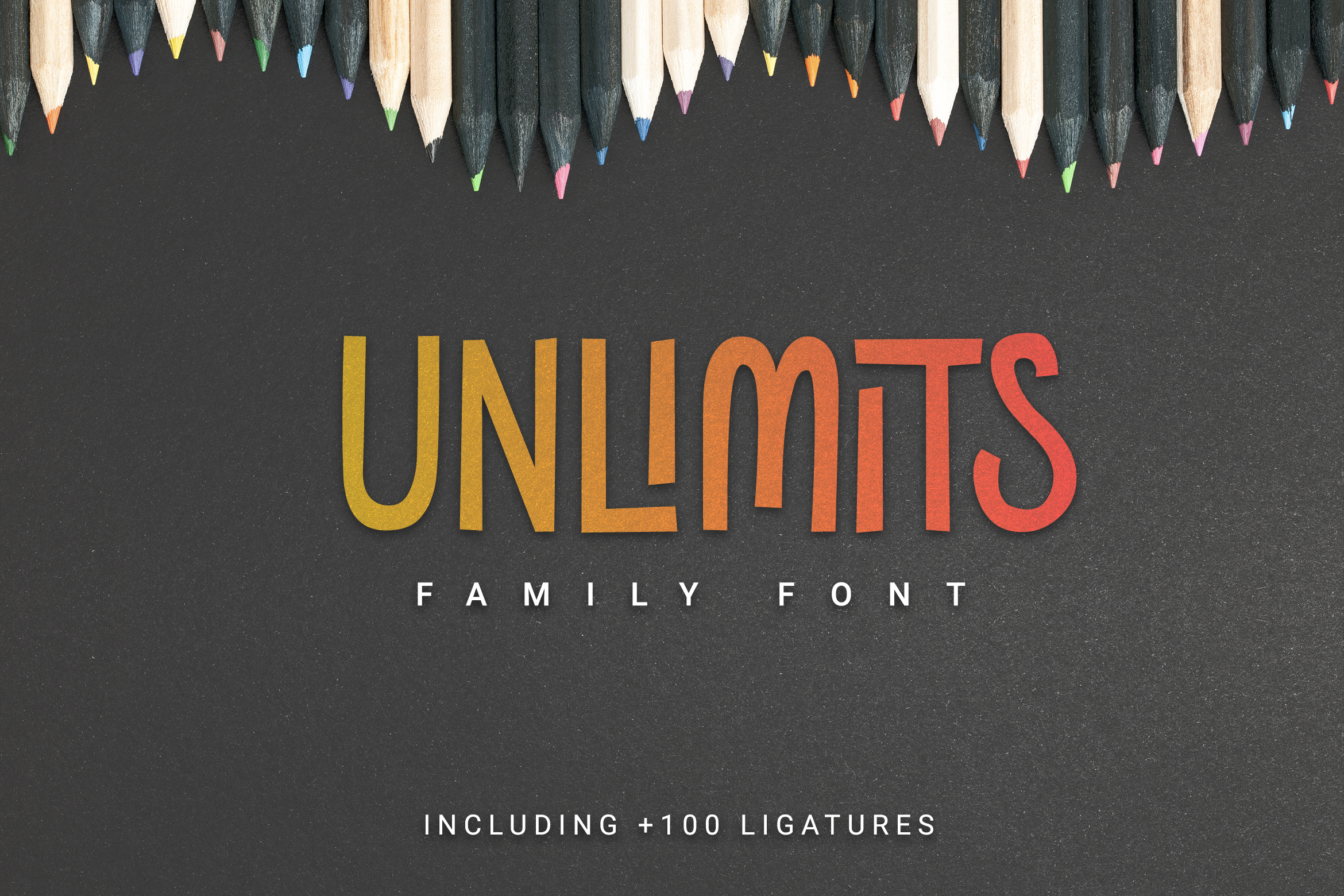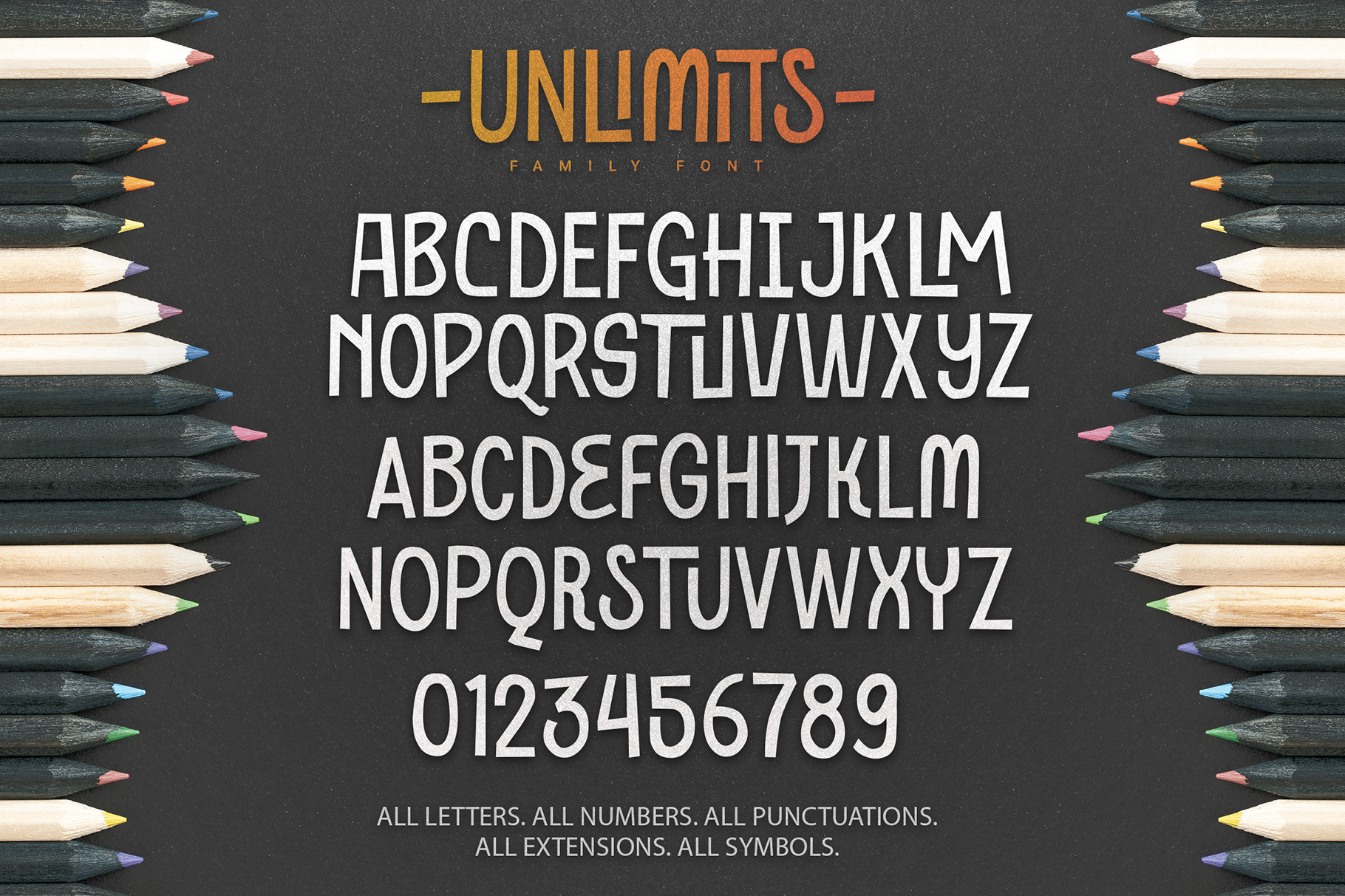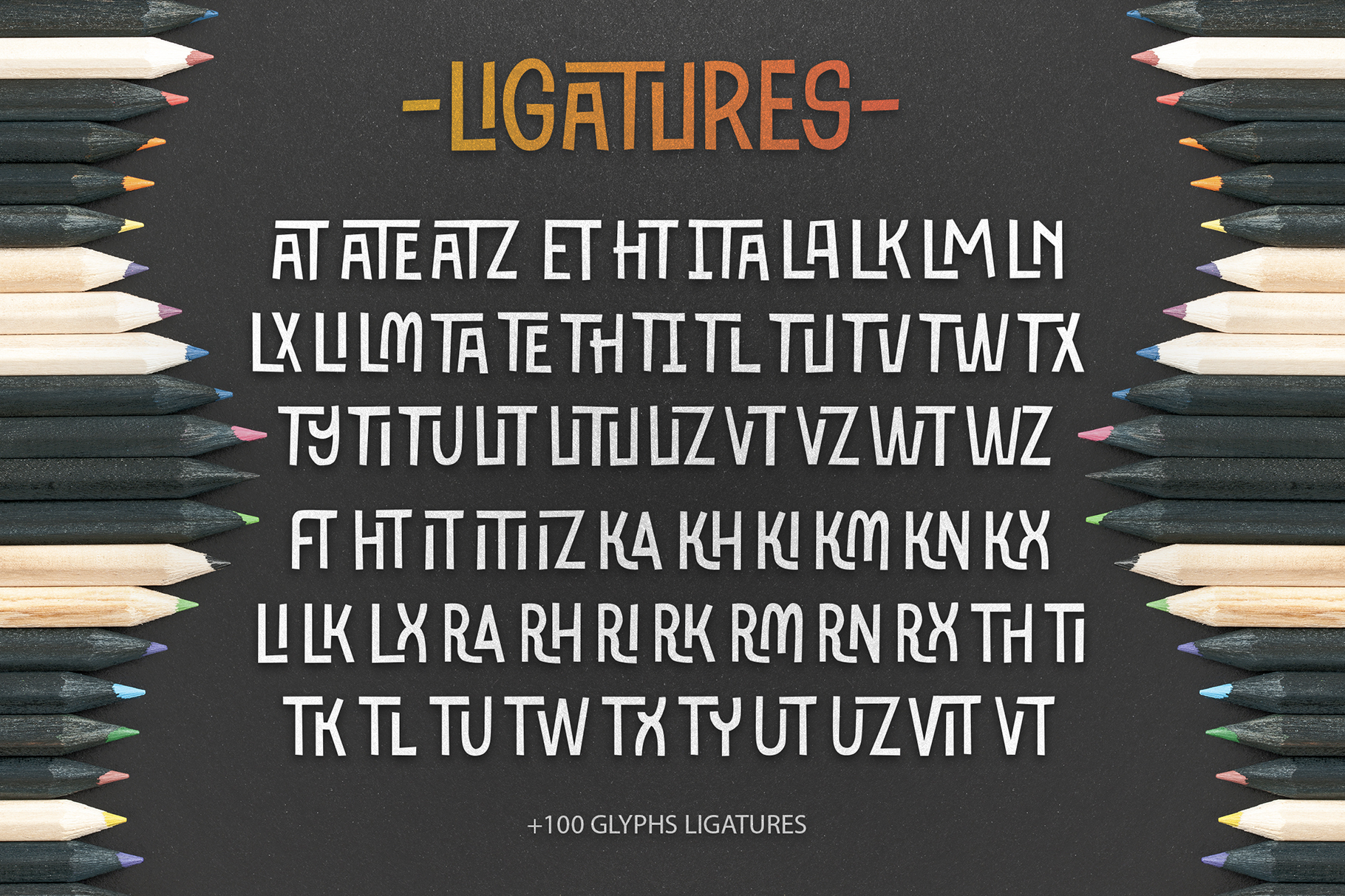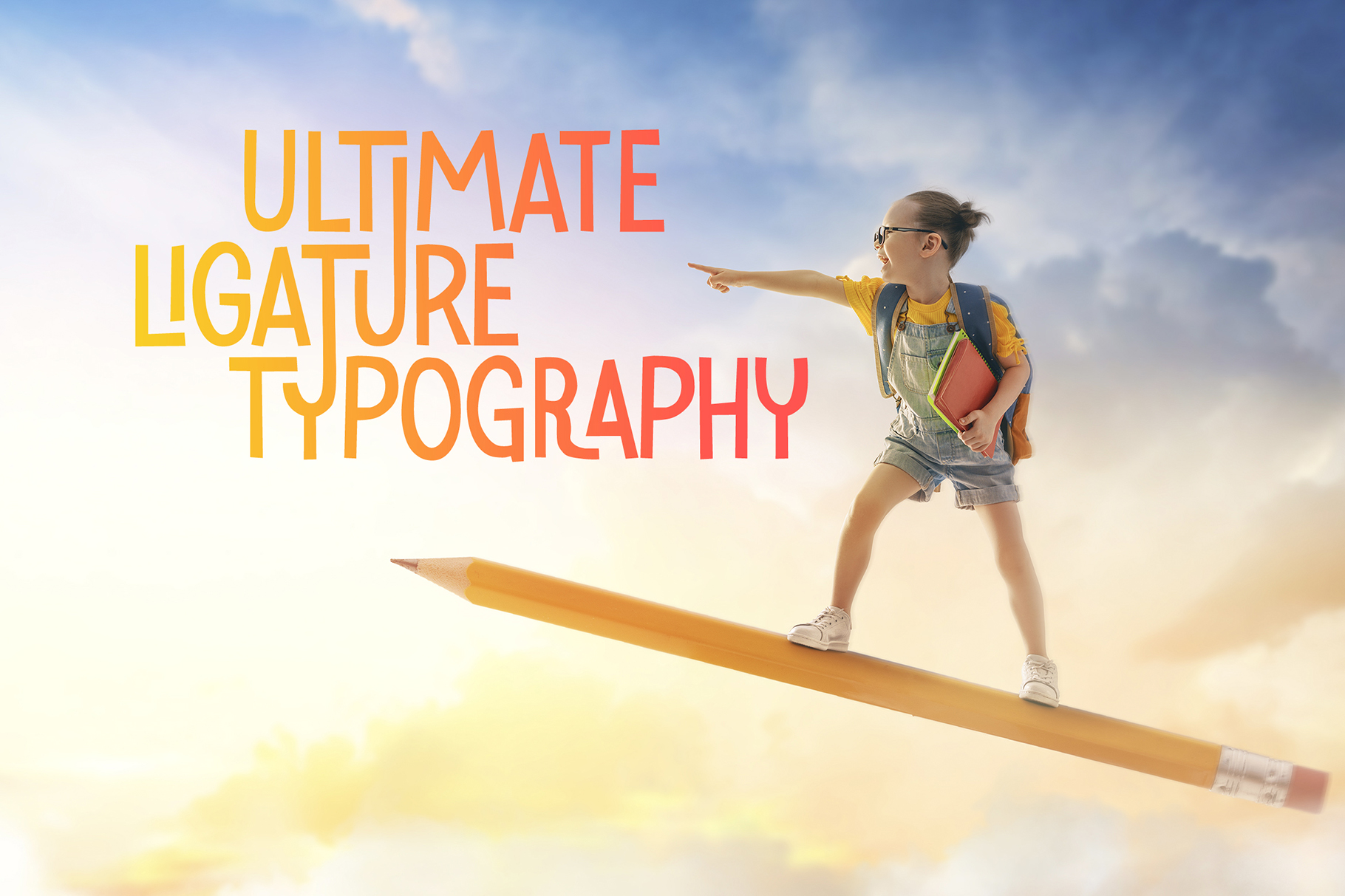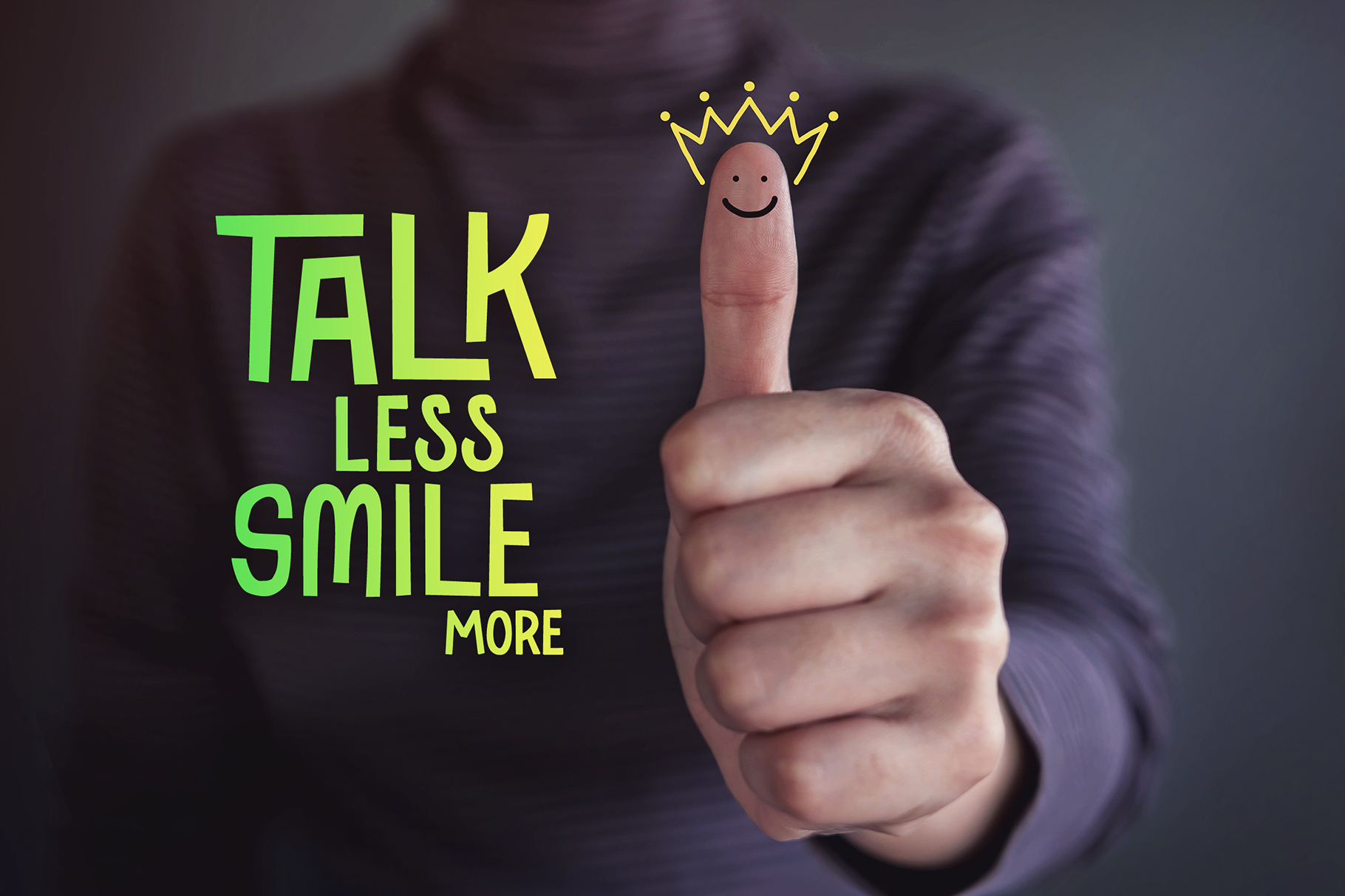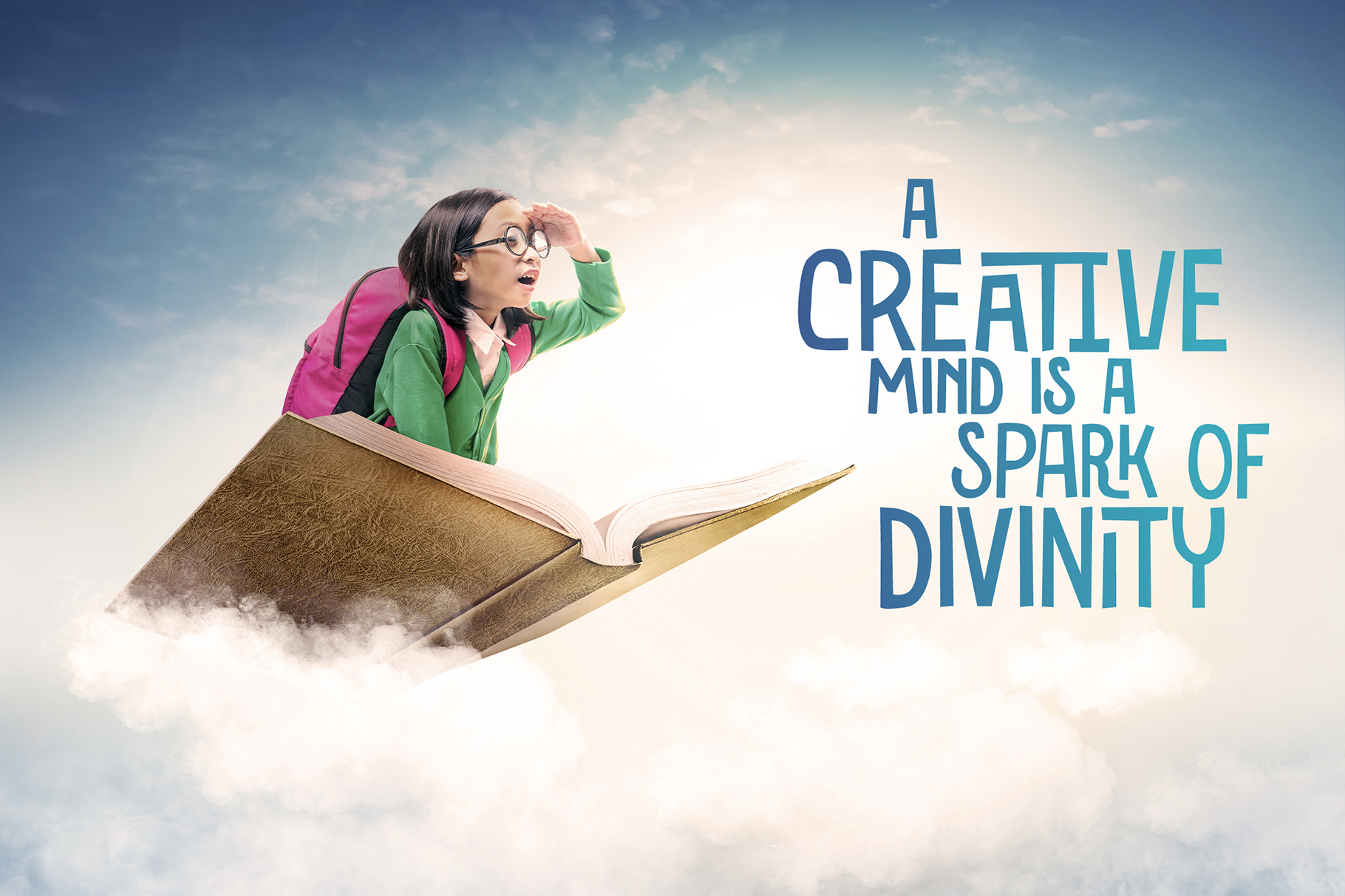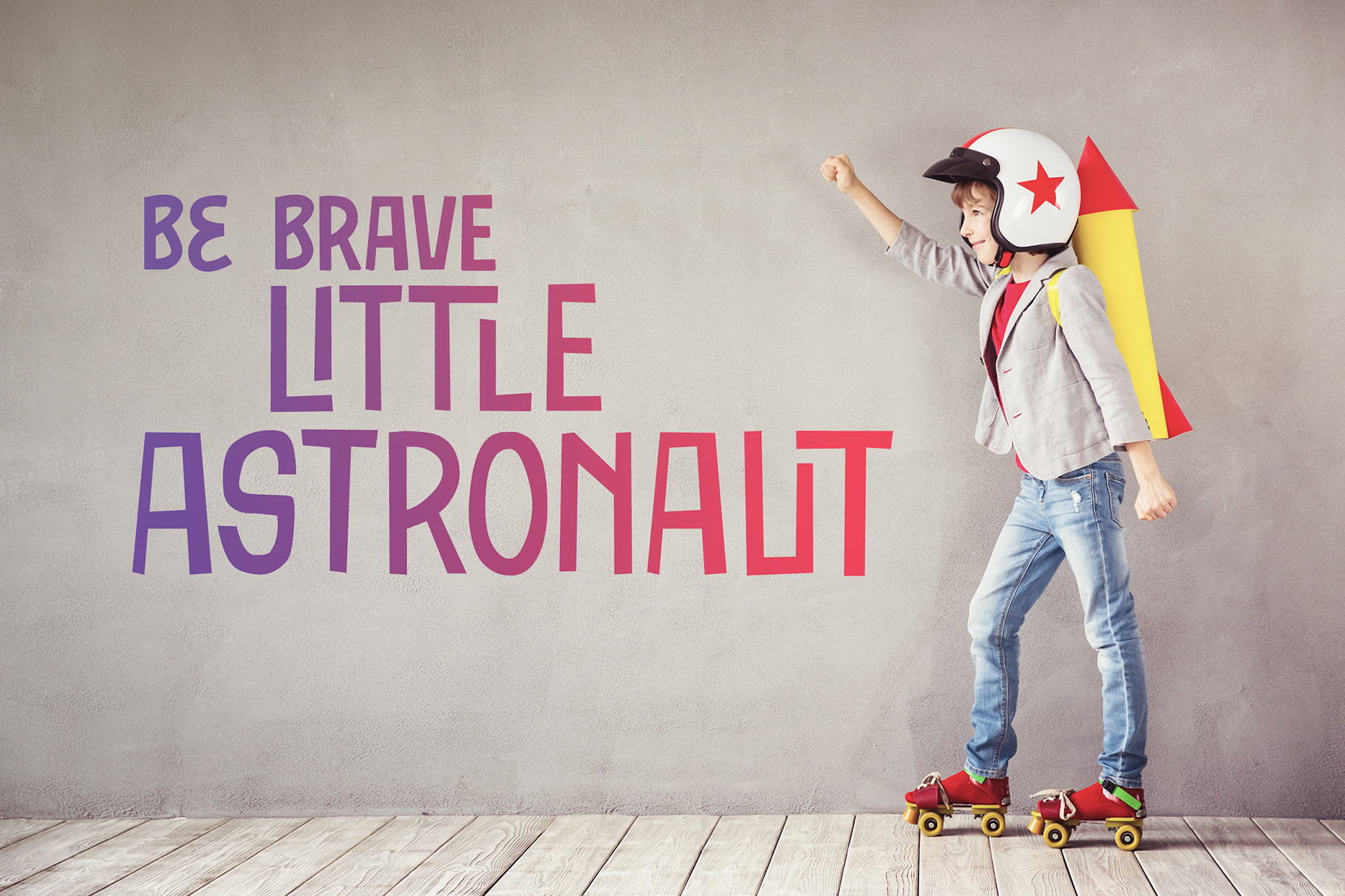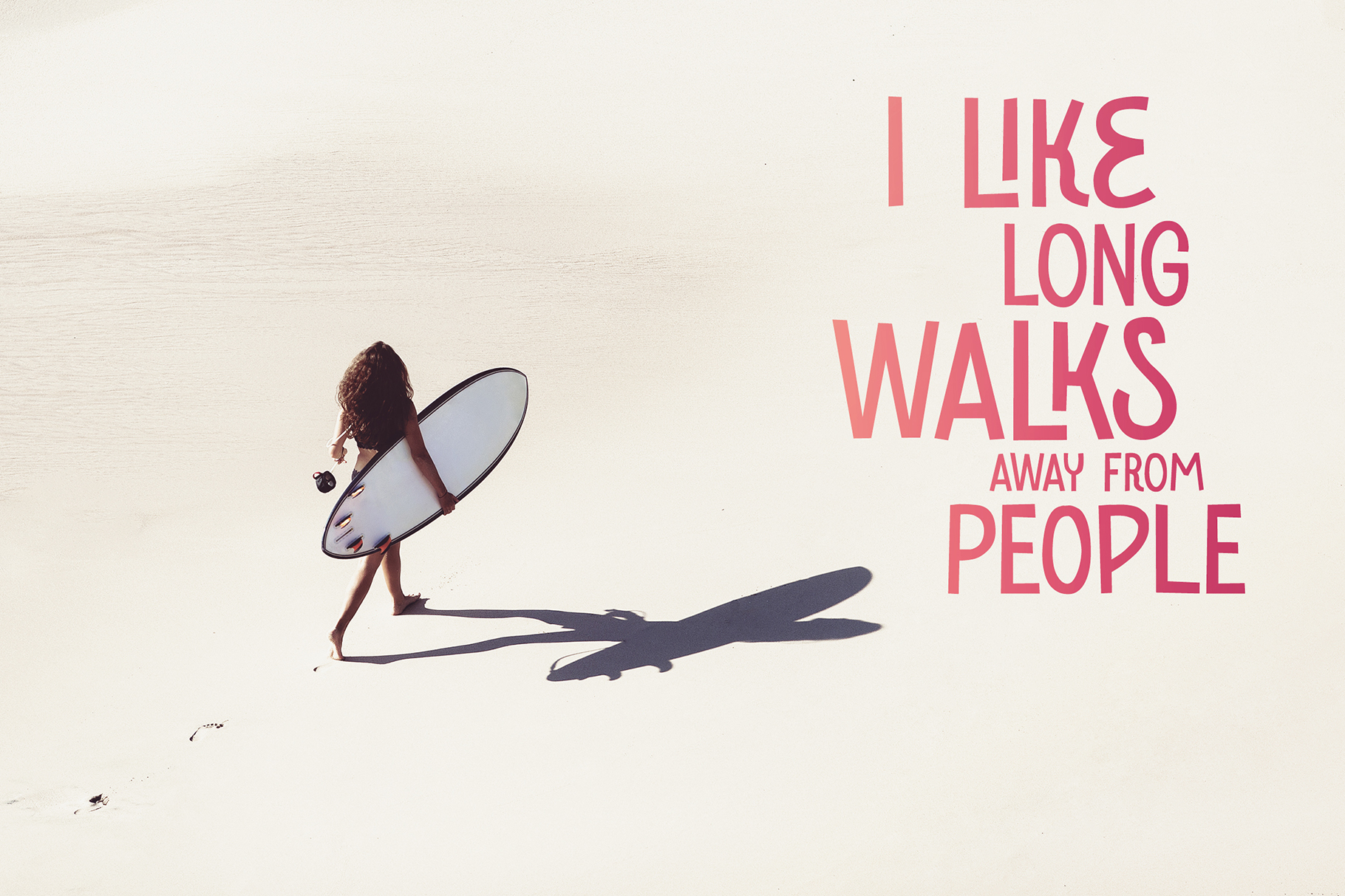
Unlimits is a handwritten ligature font family with more than 100 glyphs ligatures such as numbers, symbols and custom lettering styles. A modern font family to achieve an imperfect and unique result!
- More than 100 Glyphs Ligatures
- All Letters & 2 uppercase versions